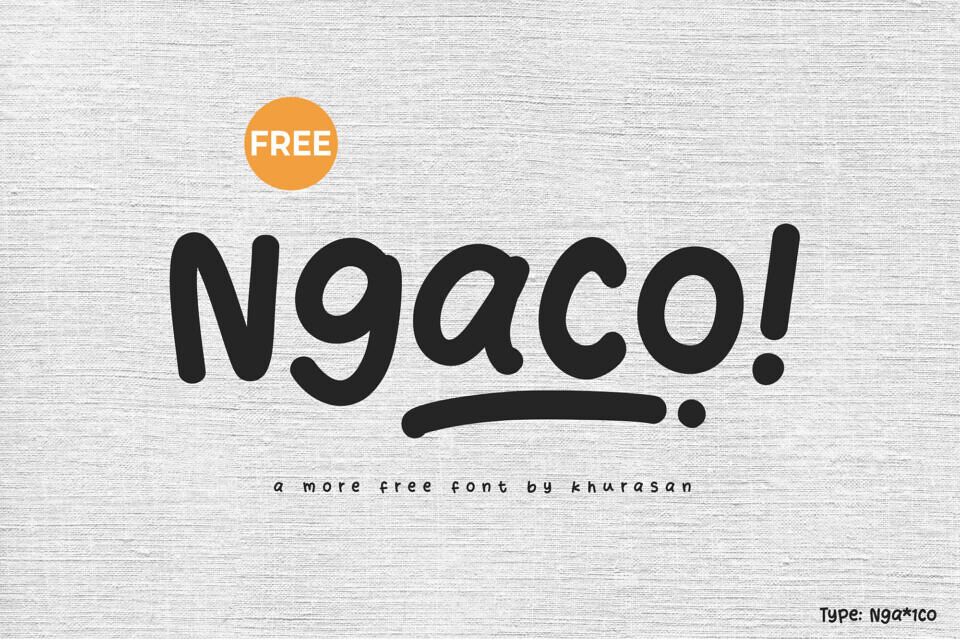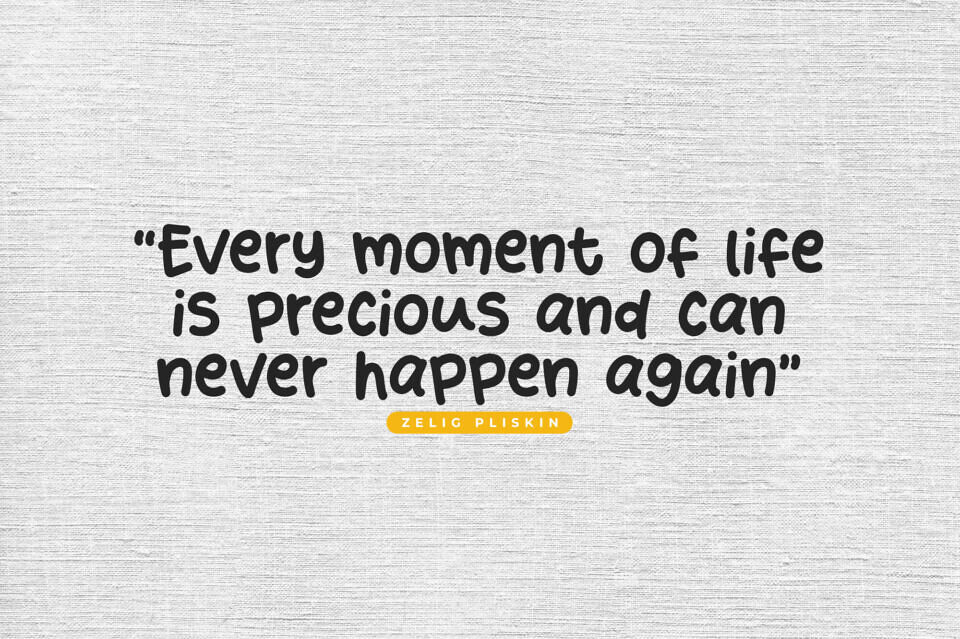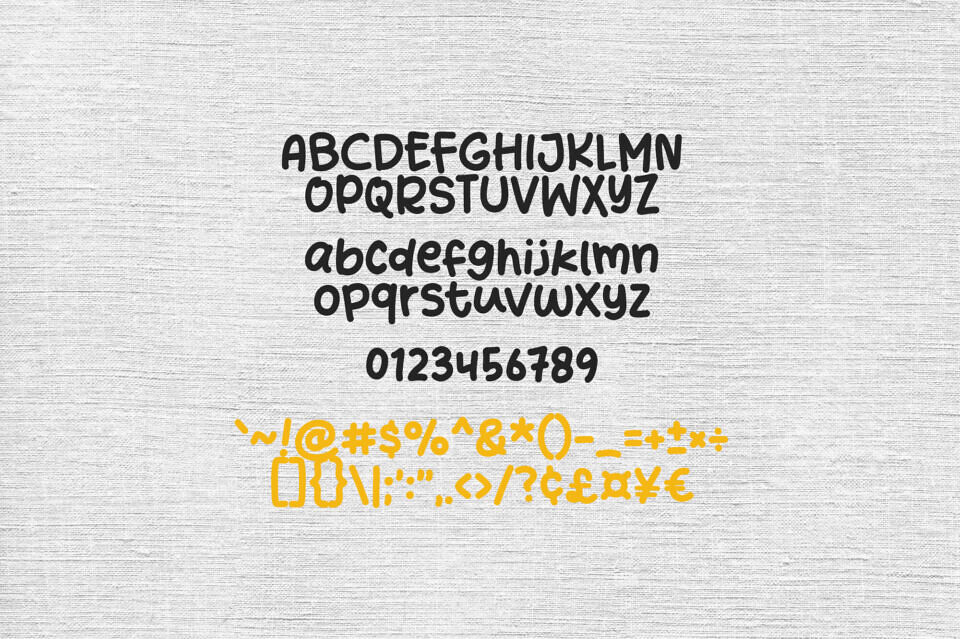
Inject a dose of spontaneous energy into your designs with Ngaco!, a playful hand-drawn display font that celebrates imperfection. This typeface features soft, rounded strokes and a distinct “bouncy” baseline, giving it a friendly and informal personality.
Its thick, marker-style weight and casual silhouette make it an exceptional choice for expressive social media quotes, children’s book titles, fun merchandise, and lighthearted branding.